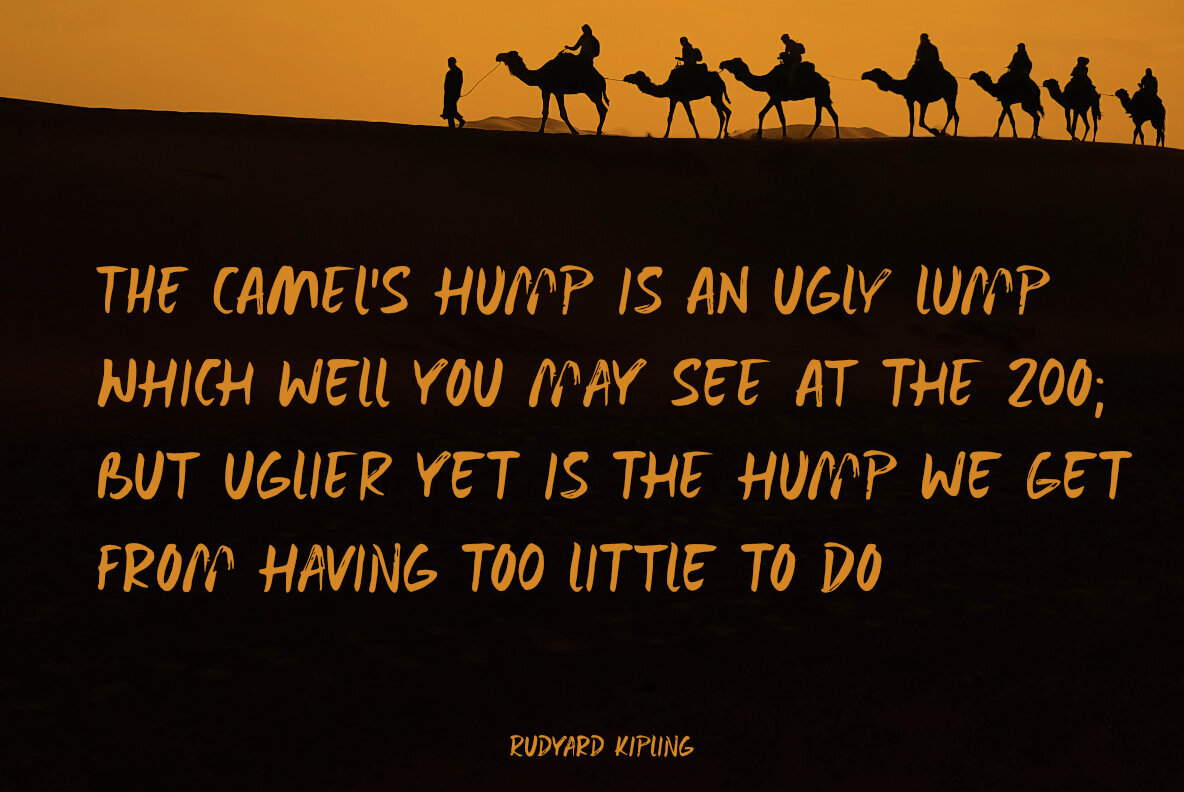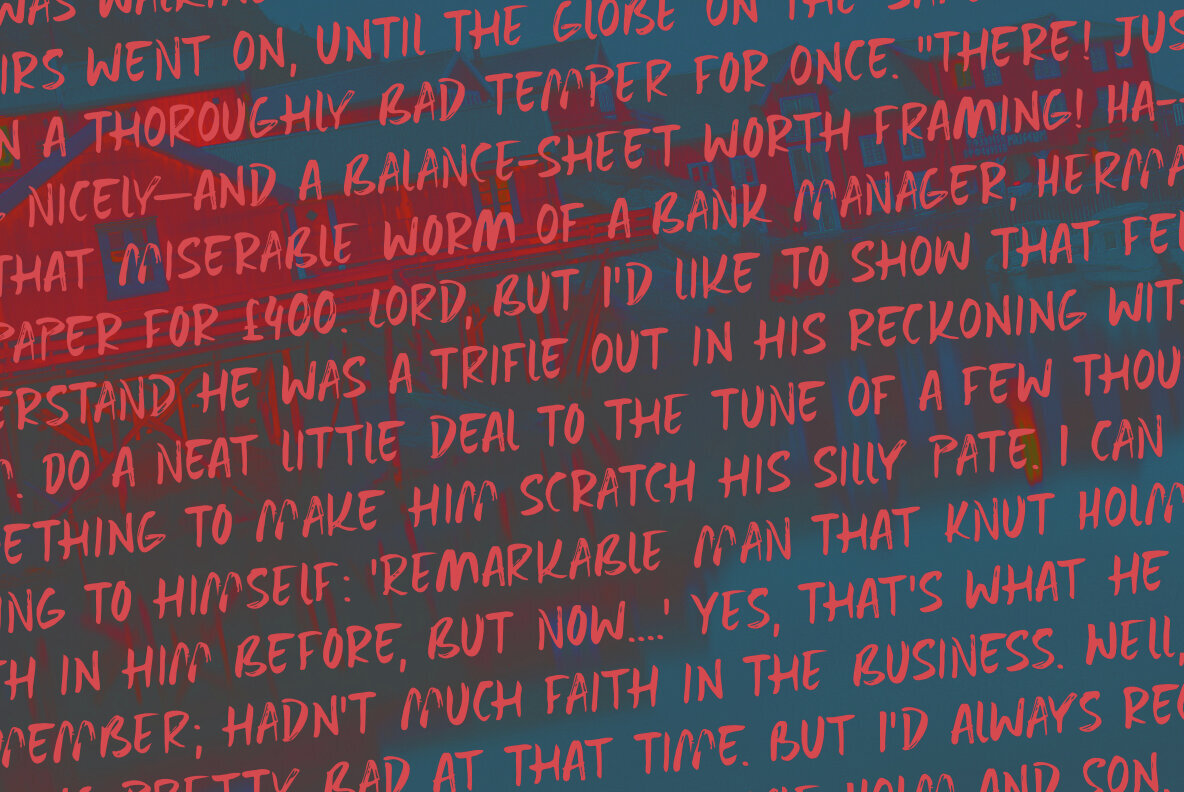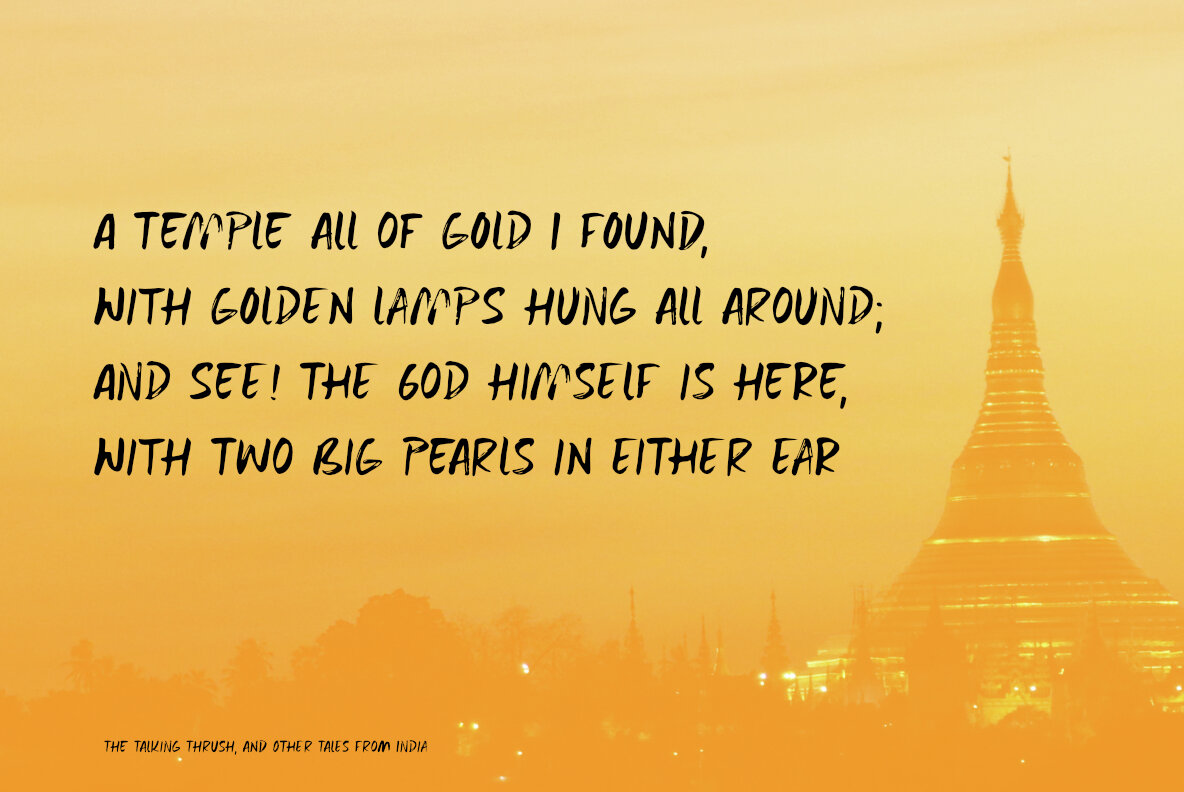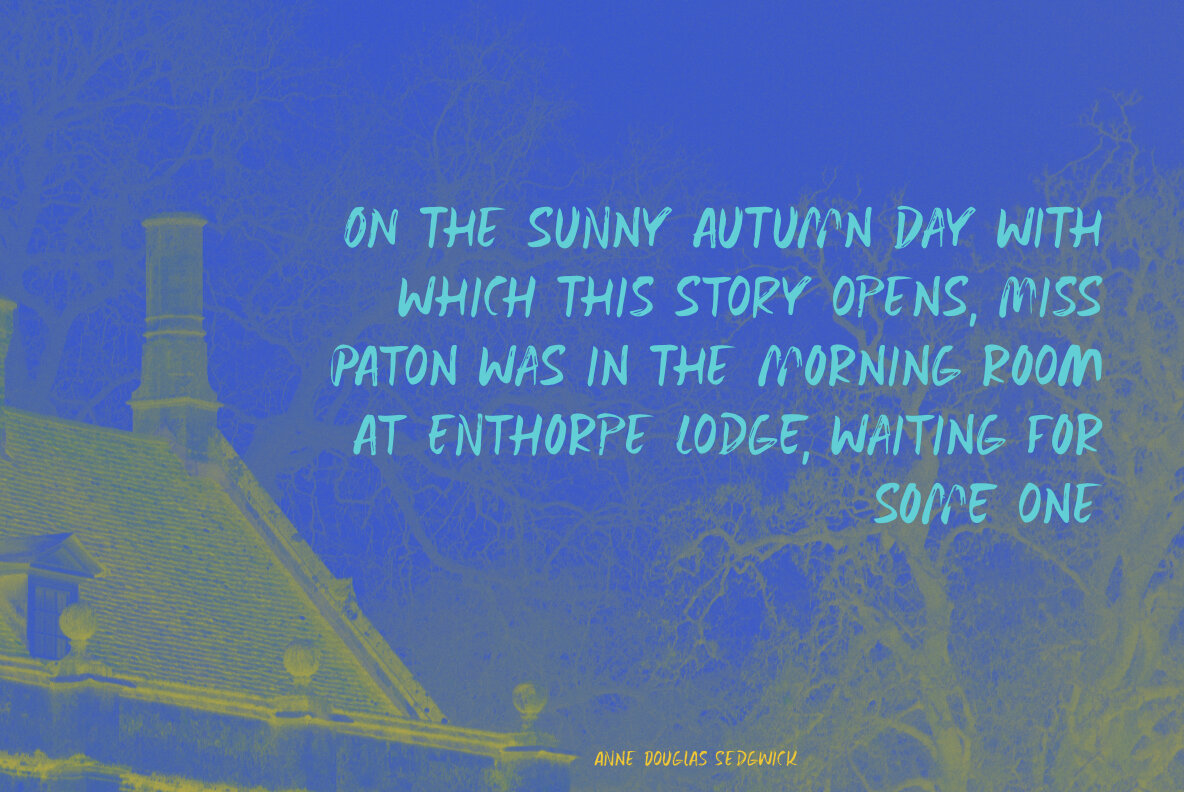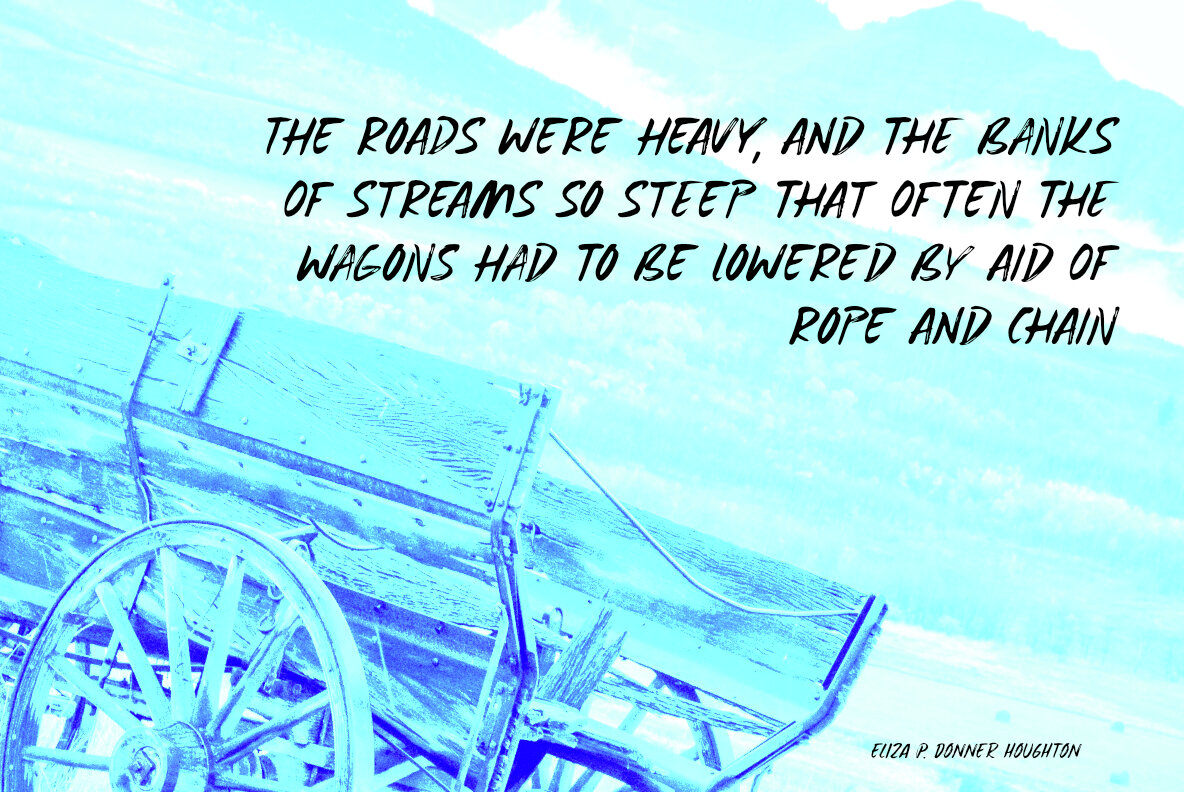
Bumpy Ride Font
I live in a small hamlet near the Rhine river. It is a sleepy little town and it doesn’t have any facilities. For groceries I need to go to the next town. The only road leading to that town has been closed for half a year, because of ‘maintenance’, so doing groceries got a lot trickier. The fastest way to travel is through yet another hamlet in the forest, on a very narrow road with extremely bumpy shoulders. Yes, you’ve guessed it: it is a Bumpy Ride. Bumpy Ride was made using a so called Brush Pen. It comes with all the accents and a sweet set of alternates for the lower case letters.